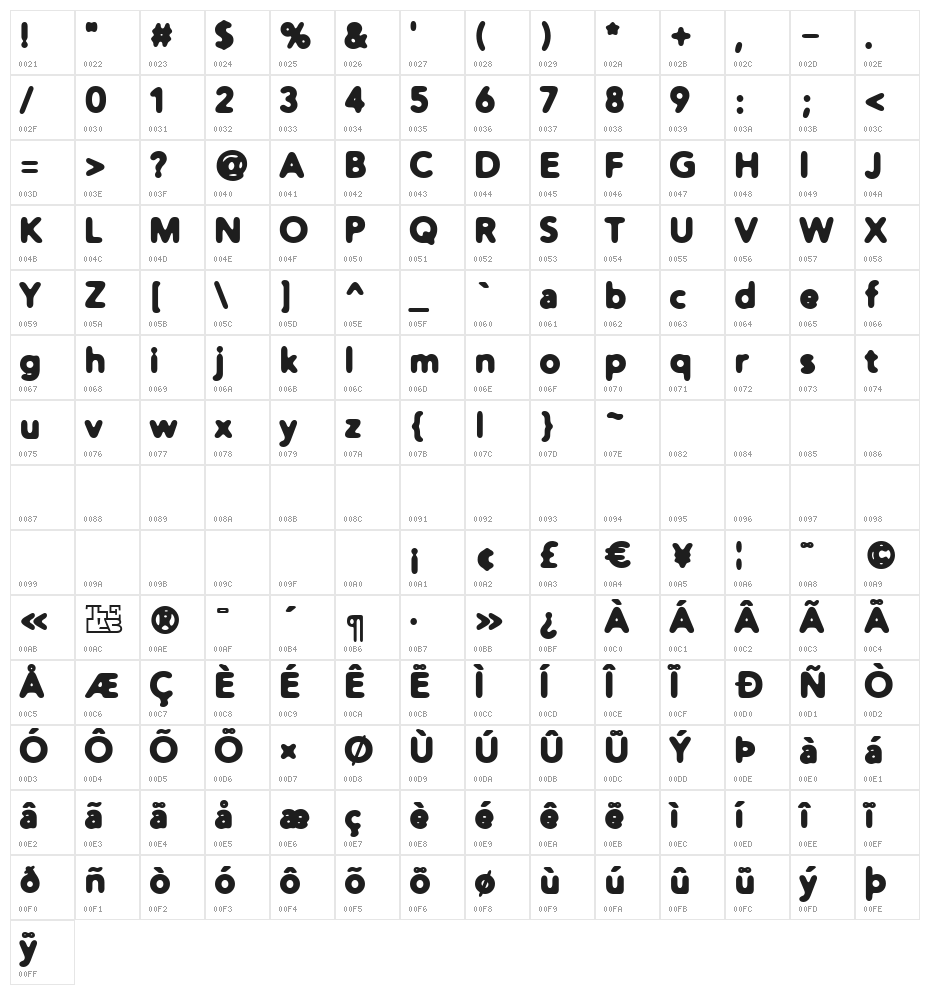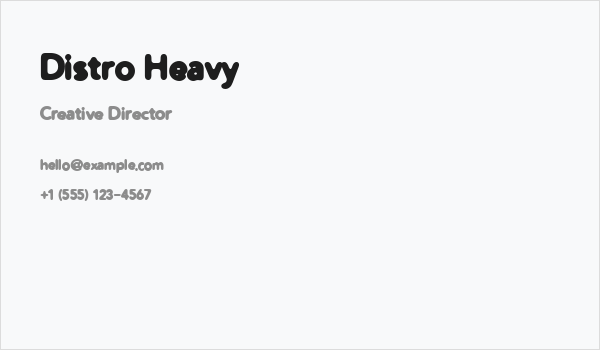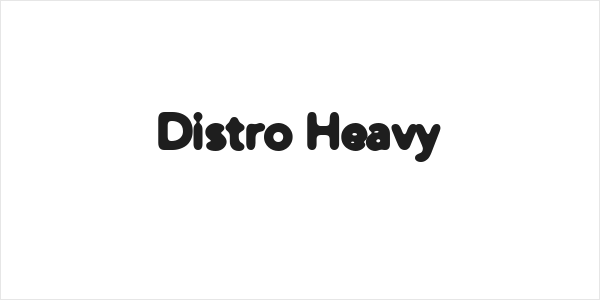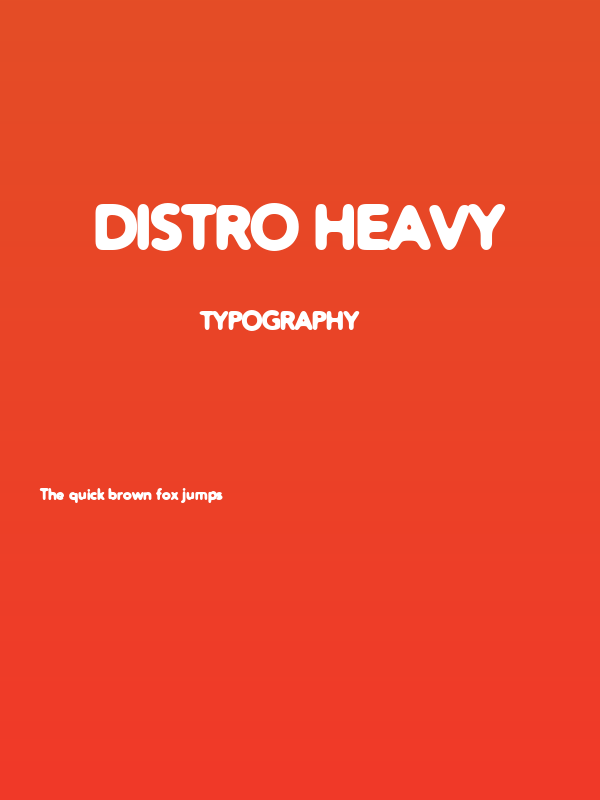
Distro Heavy Font
Distro Heavy Description
This font features bold, rounded characters with a playful and friendly appearance. The letters are thick and have a uniform stroke width, giving them a heavy and substantial look. The rounded edges and smooth curves contribute to a soft, approachable feel, making it ideal for designs that aim to be inviting and fun. The numerals and special characters maintain the same bold and rounded style, ensuring consistency across all elements. This font is particularly effective in capturing attention due to its substantial weight and unique style.
| Overall Style | Playful |
| Proposed Projects | Ideal for children's books, playful branding, posters, and social media graphics. |